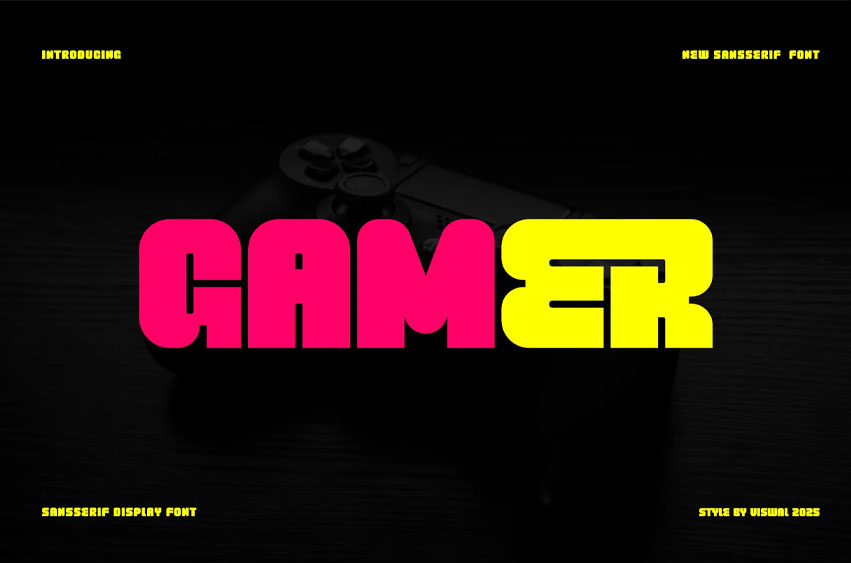
Gamer Font Is A Game & Sport Font. Can Make It Easier To Convey The Message In Your Design. Font Is Suitable For Logo, Labels, Badge, Branding, Magazine, Poster, Title, Gigs, Covers, etc.
Our Fonts Have Uppercase & Lowercase, numerals & Punctuation, and OpenType features. For Amazing Designs, You Can Mix With Other Fonts As A Complement.